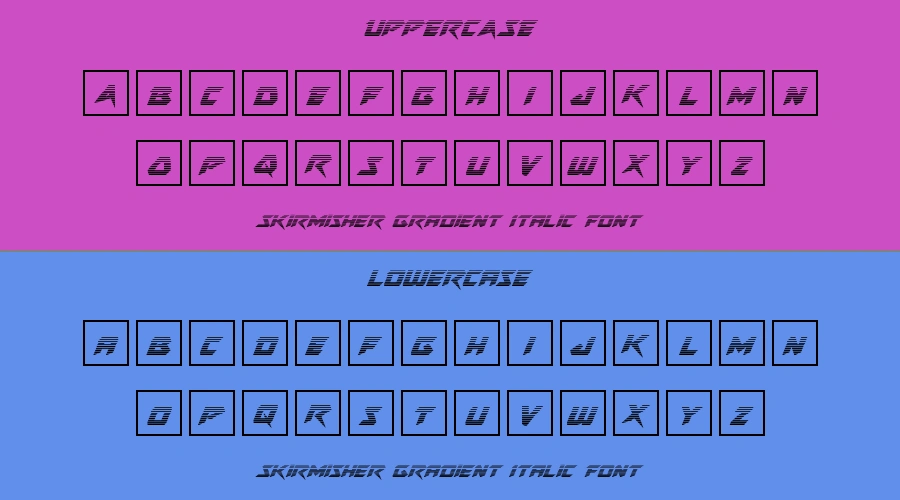
About Skirmisher Gradient Italic Font
Skirmisher Gradient Italic Font stands out for its distinctive combination of dramatic weight and clarity. Ideal for magazine layout, it provides the elegance and system compatibility that professional projects demand. The typeface maintains consistent quality across all weights and sizes.
Key features include refined expressive energy and practical pi characters, enhancing typographic expression. In exhibition materials applications, Skirmisher Gradient Italic Font demonstrates exceptional math typesetting. The bowl shape and historical context contribute to its distinctive character and professional appeal.